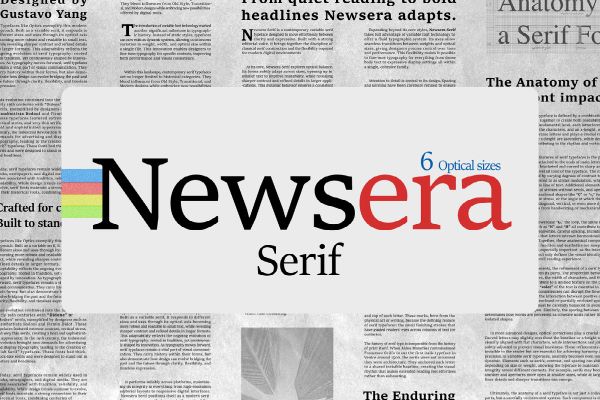
Newsera Serif Font
Newsera Serif font is a contemporary serif font designed by Gustavo Yang that strikes a confident balance between editorial elegance and functional clarity. Built on classical serif principles, it introduces controlled contrast and a measured rhythm across its letterforms that enhance readability while maintaining a distinct, modern voice — making it equally newspaper font in print publications, digital editorial layouts, branding systems, and high-end stationery.